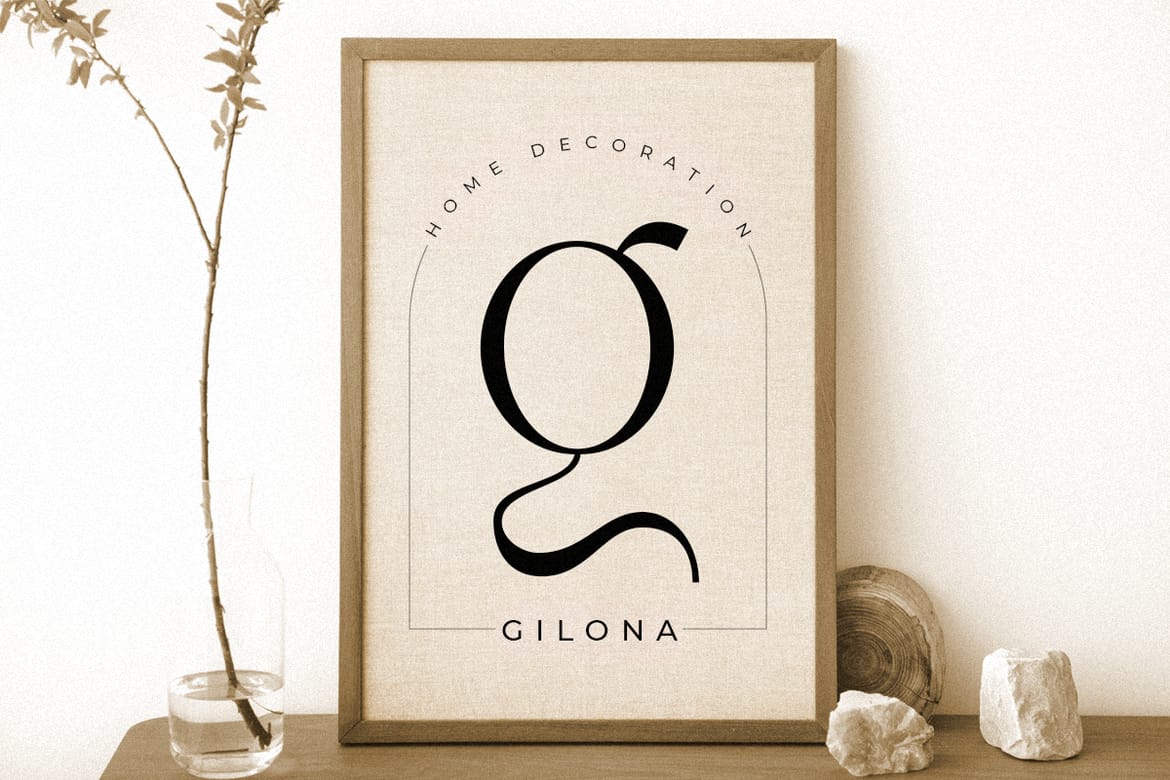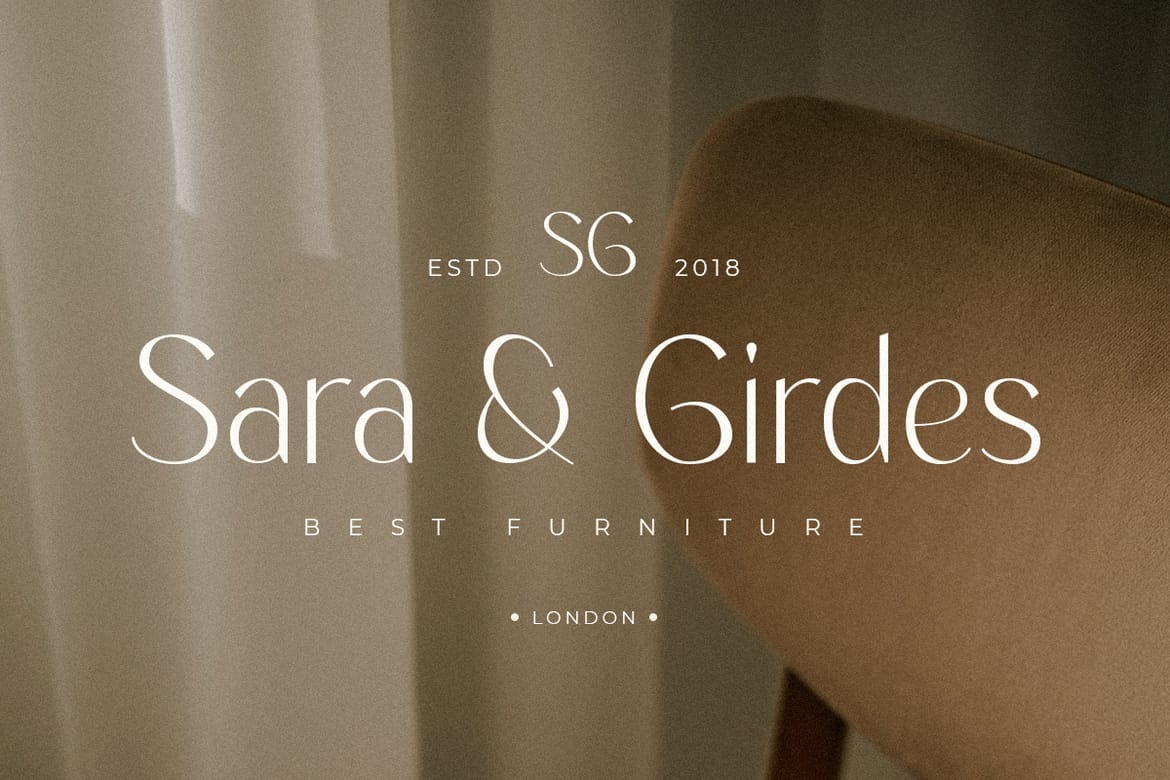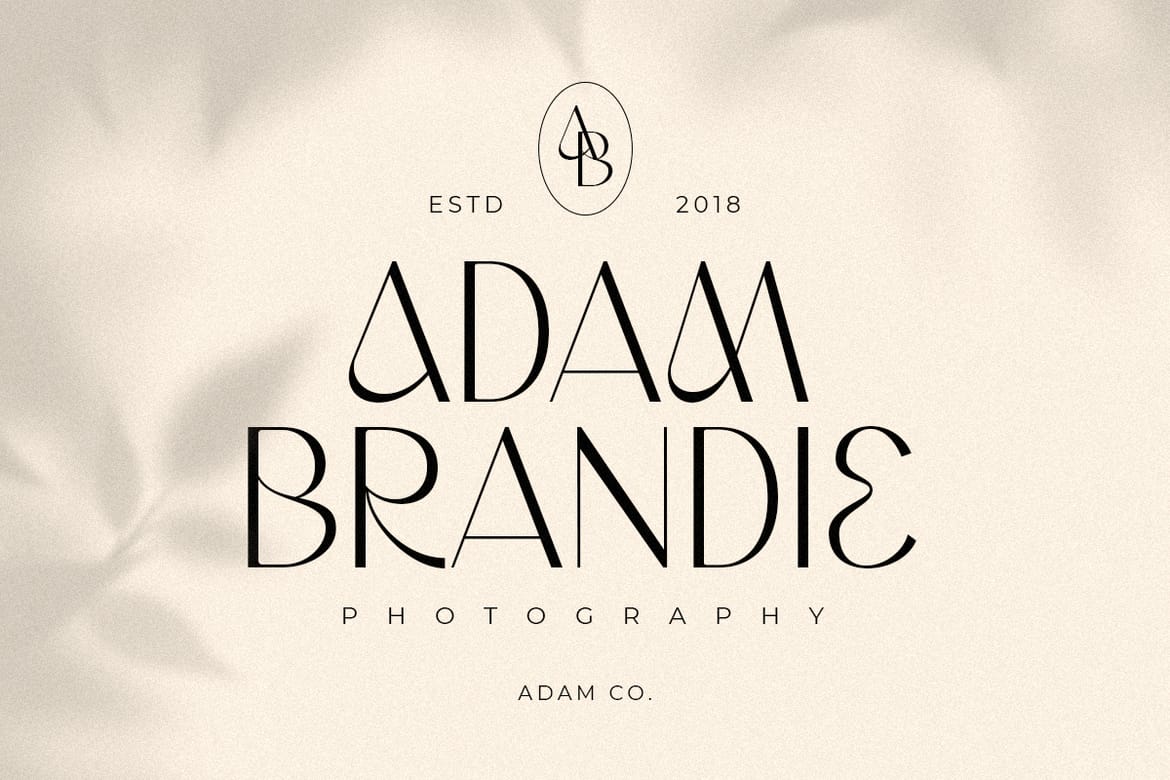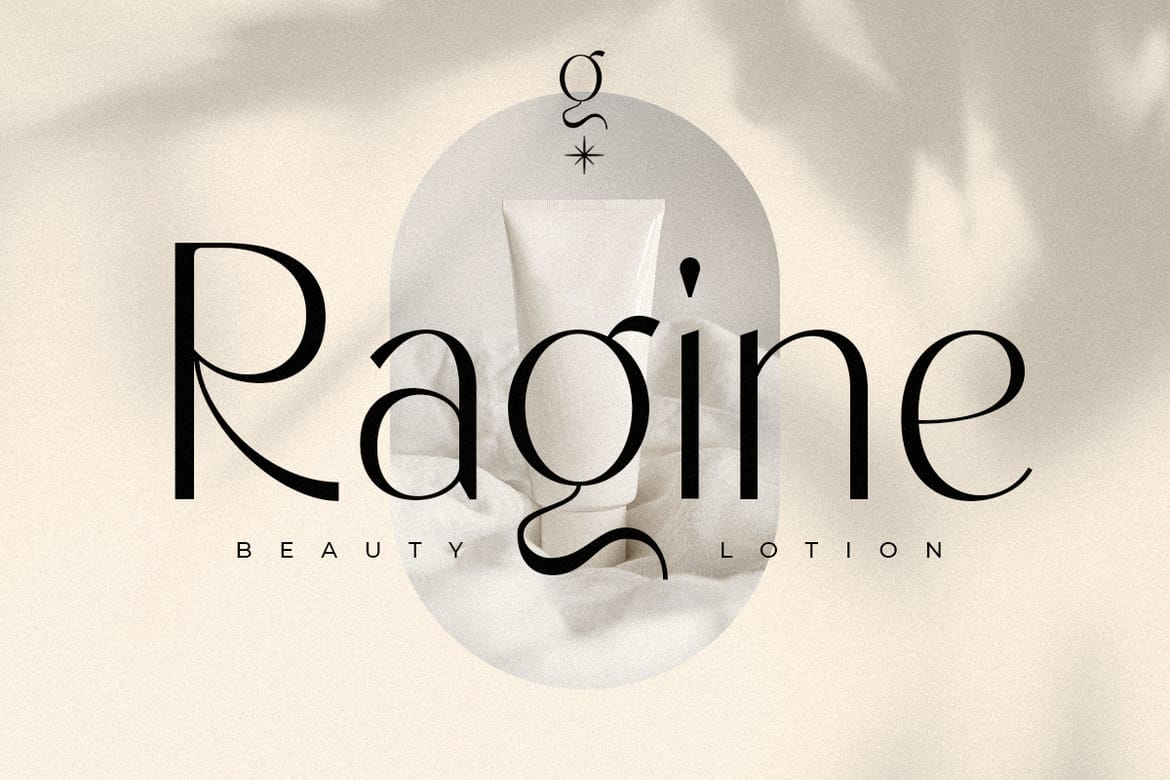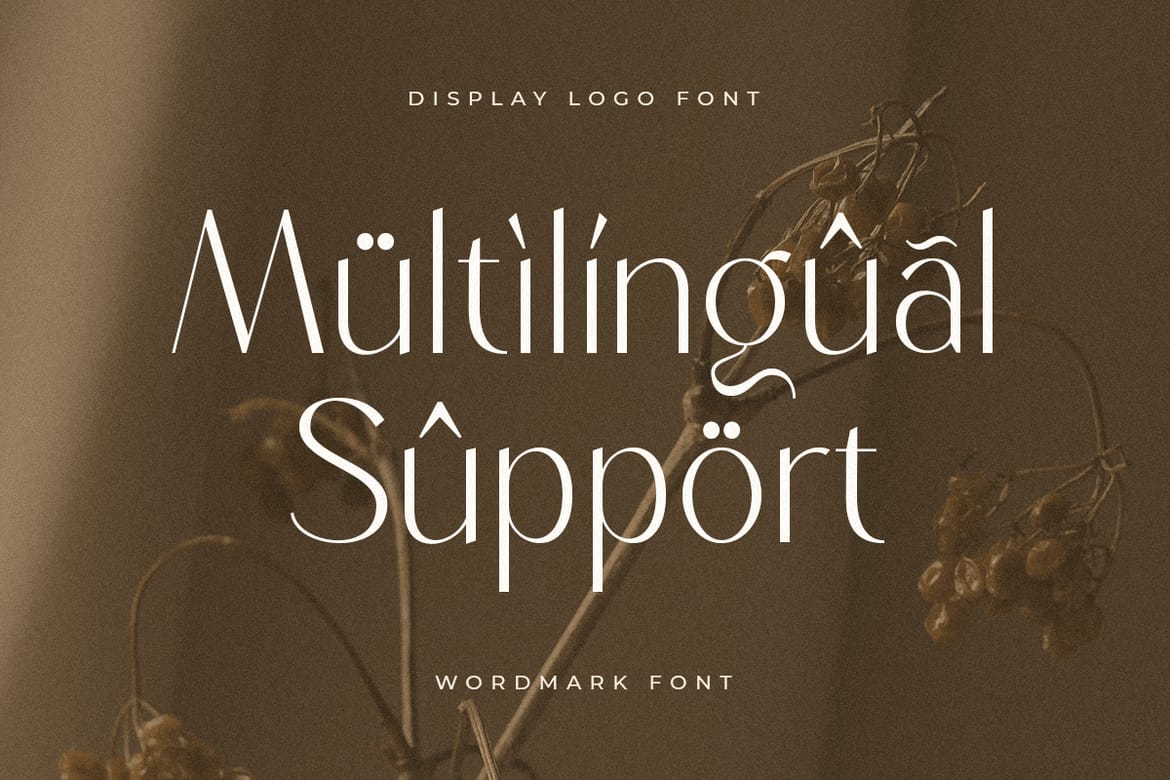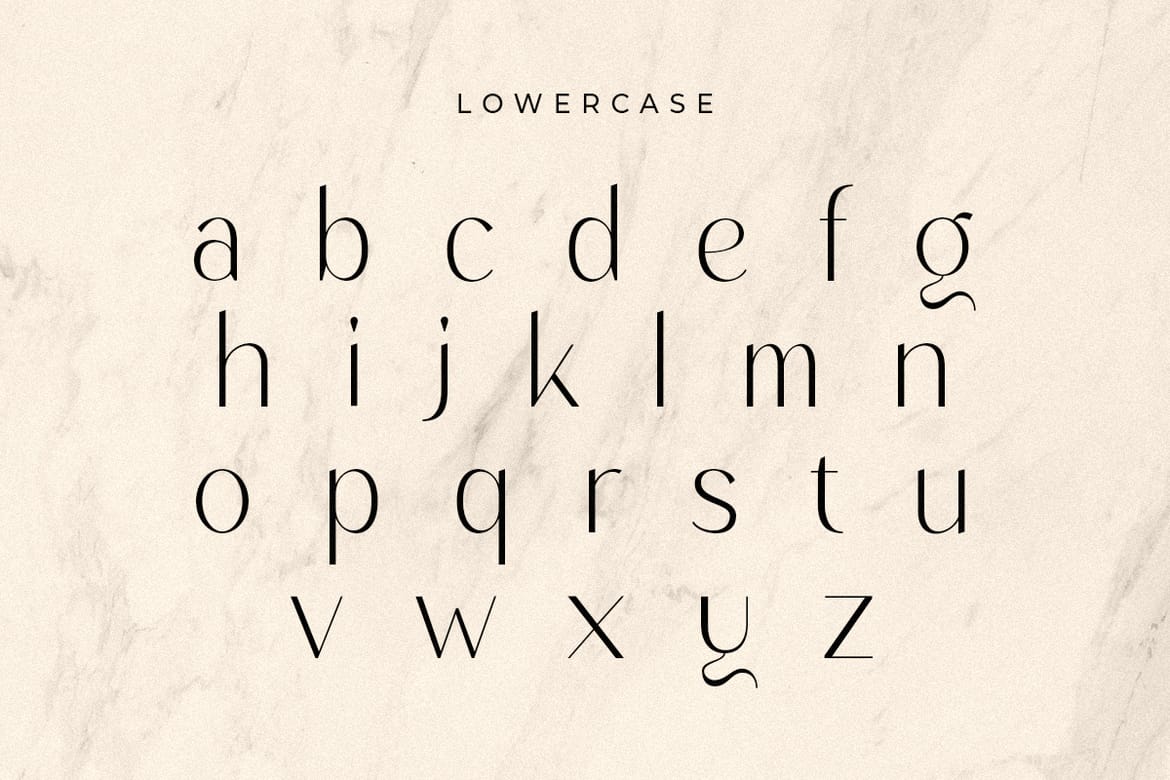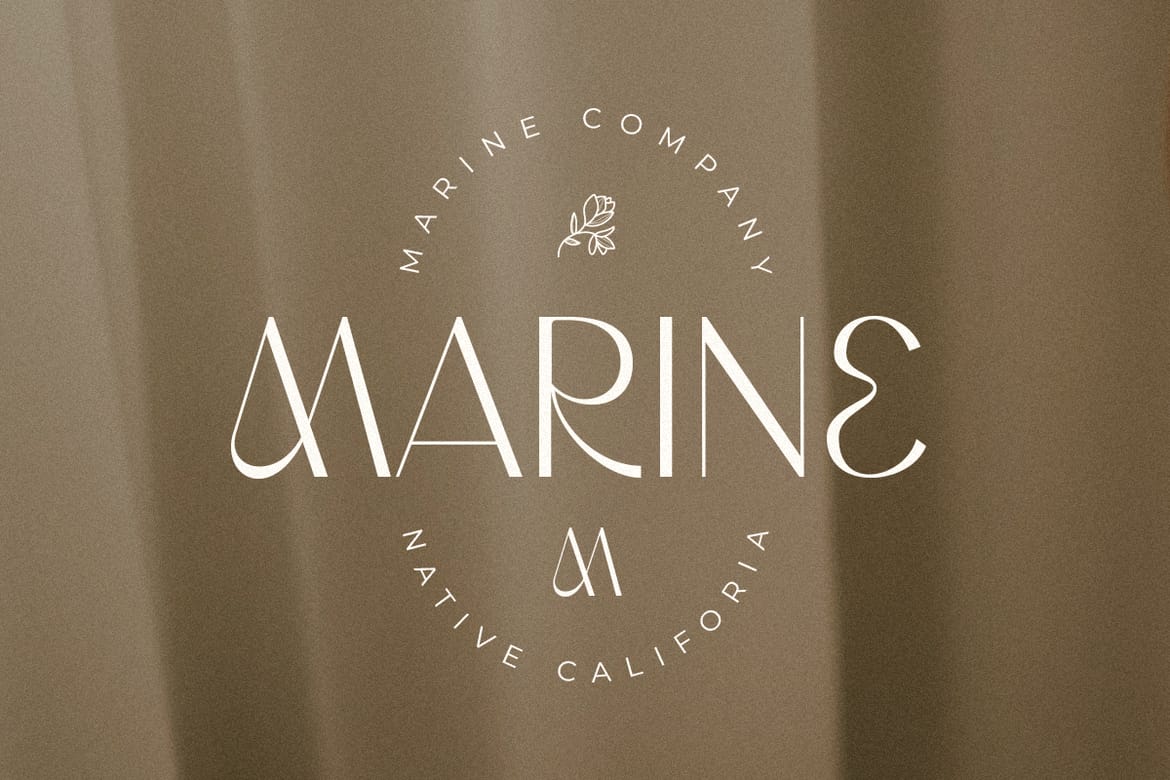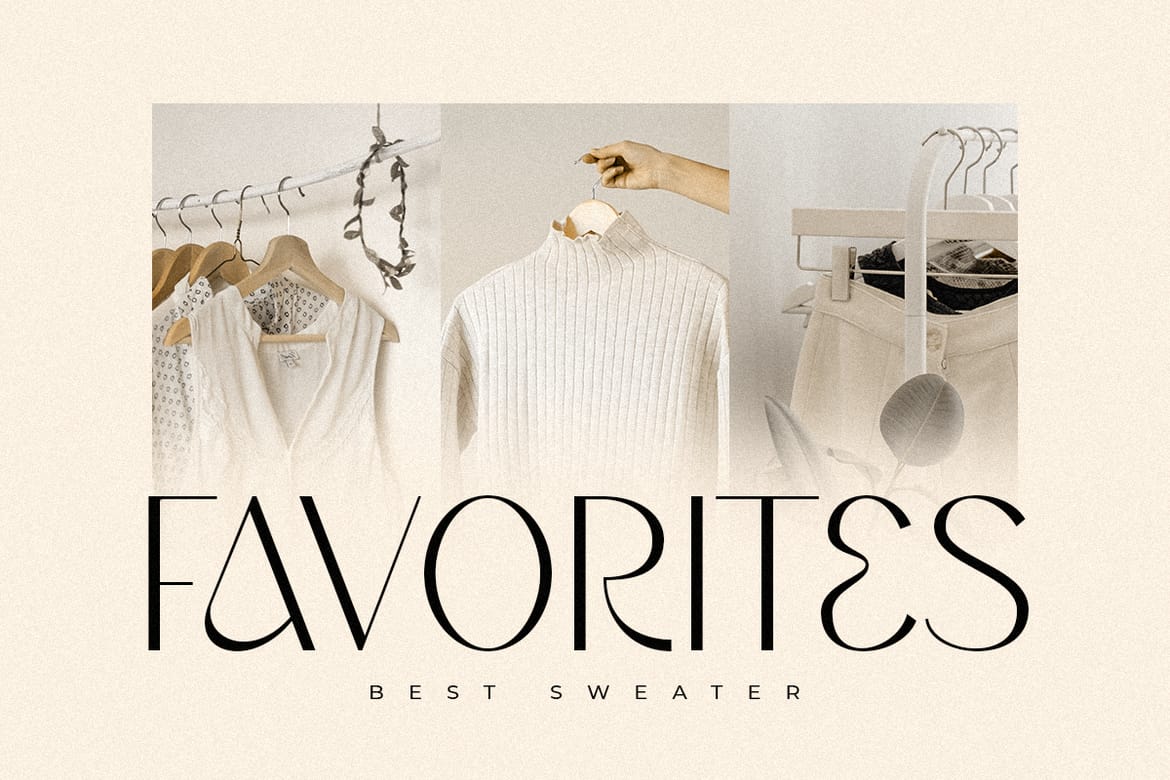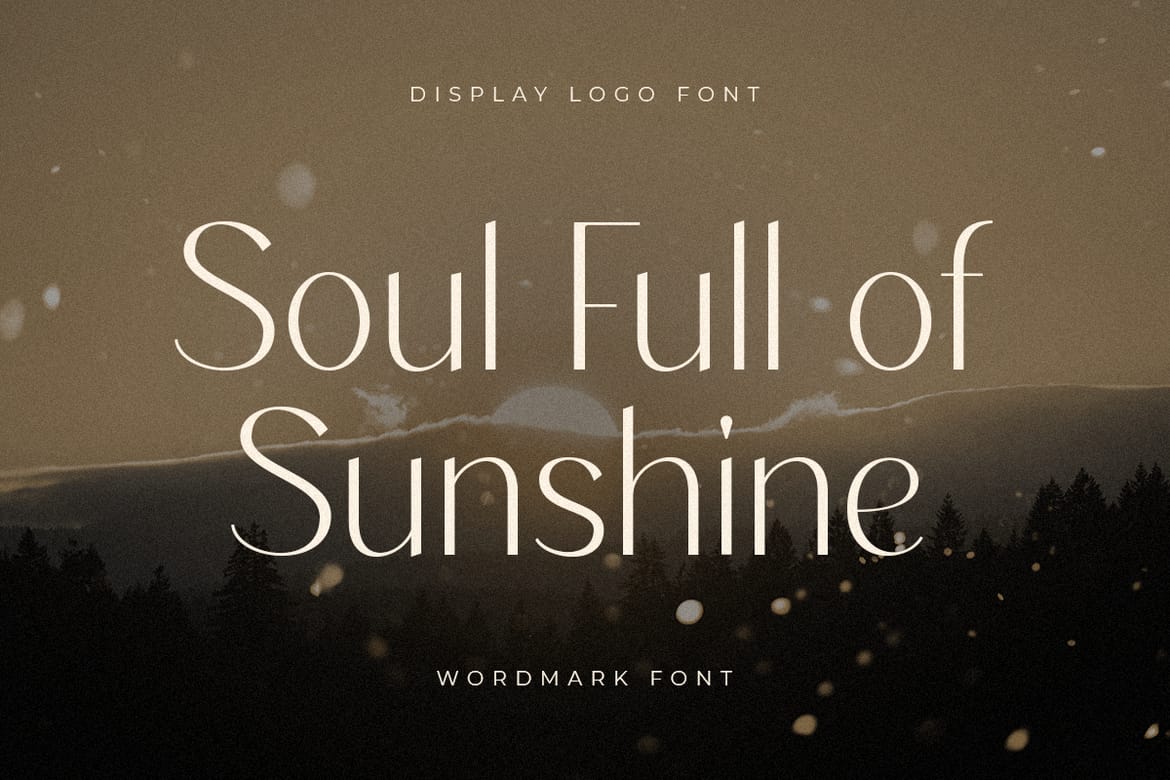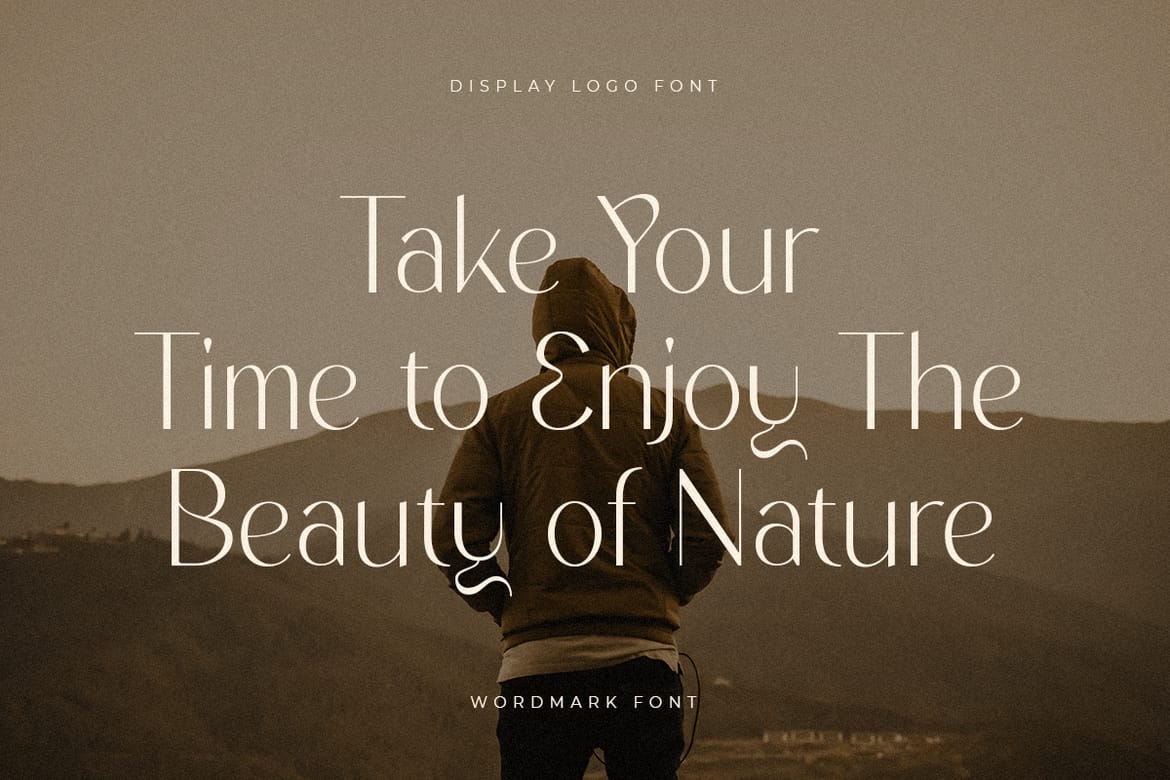
A Unique Display Logo Font that we created special for Beauty and Modern branding needs that will give you more elegant look, with alternates in unique shape will be ready to add value of your brand. It so nice to leverage designer or product owner that need solutions to make their design look more Beauty and modern. And specially for this font, We prepared any alternate characters to help you create unlimited variations for your creative needs.
Wordmark Display Logo font ready with:
Any options to get creative variations (combination of Alternates)
Preview as a inspirations that you can do with Wordmark font
Ready with Lowercase and Uppercase characters
- Elegant beauty logo display
- Alternate characters for variations
- Uppercase and lowercase included